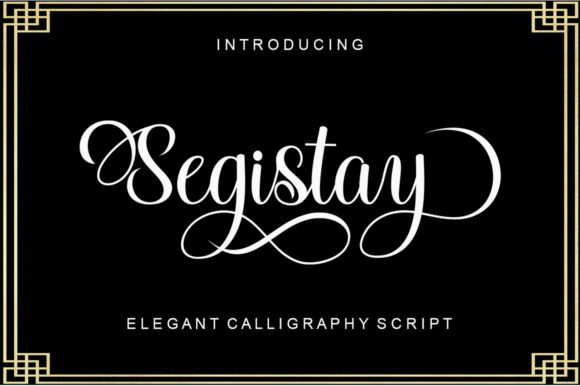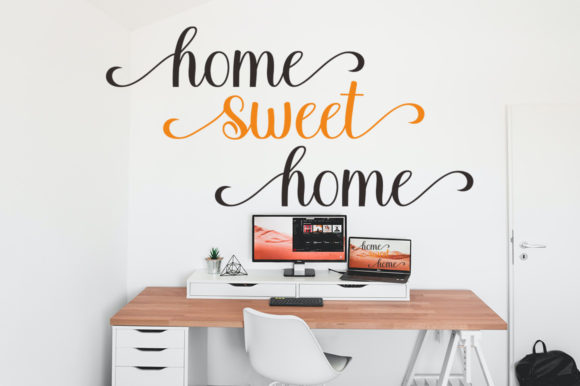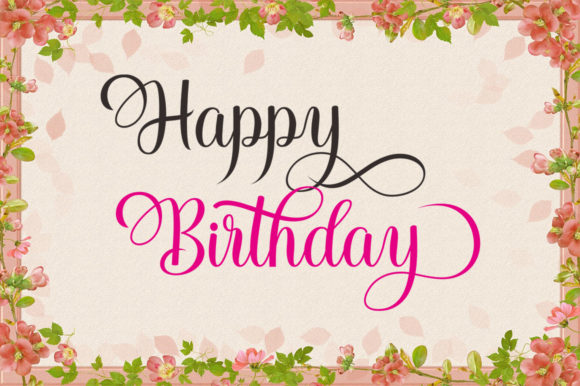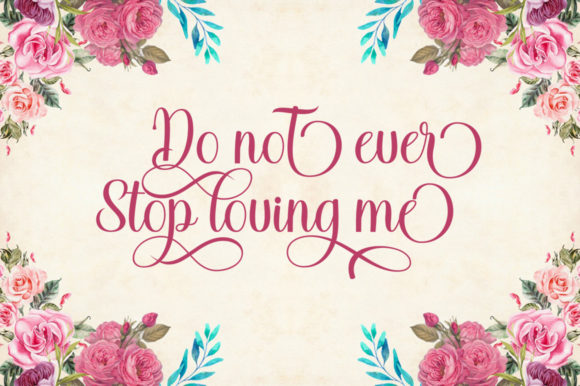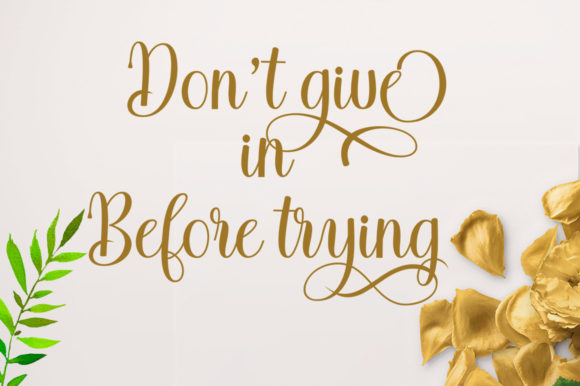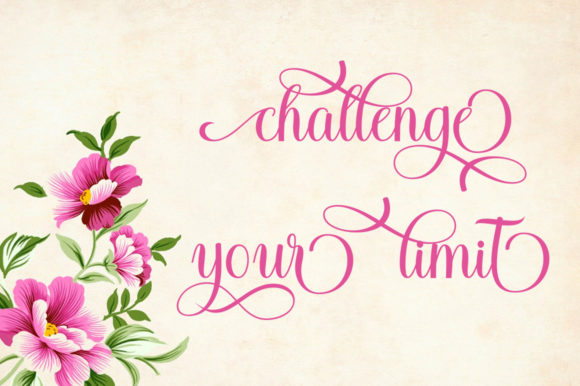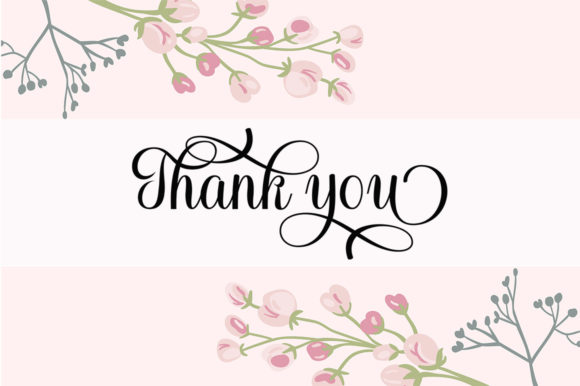
Segistay Font
About Segistay Font
Segistay maintains its classy calligraphic influences while feeling contemporary and fresh. It looks stunning on wedding invitations, thank you cards, quotes, greeting cards, logos, business cards and every other design which needs a handwritten touch.